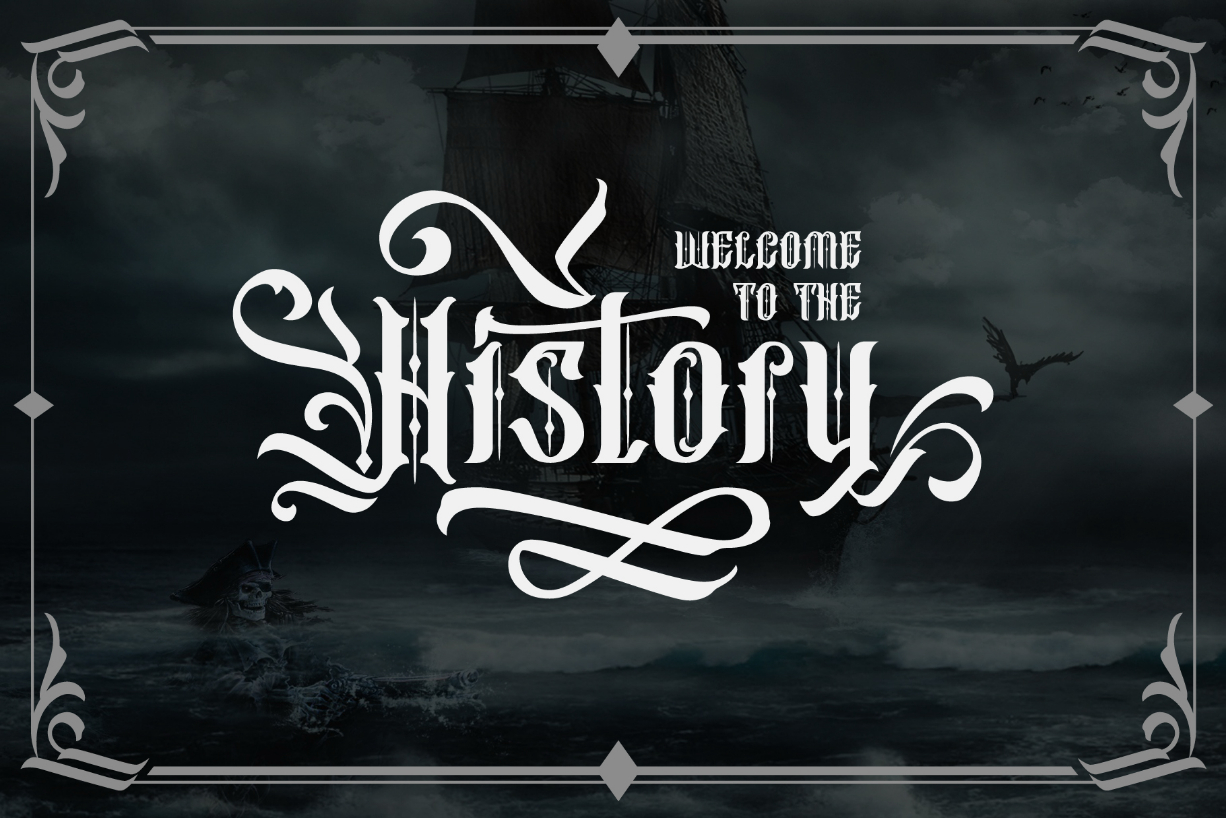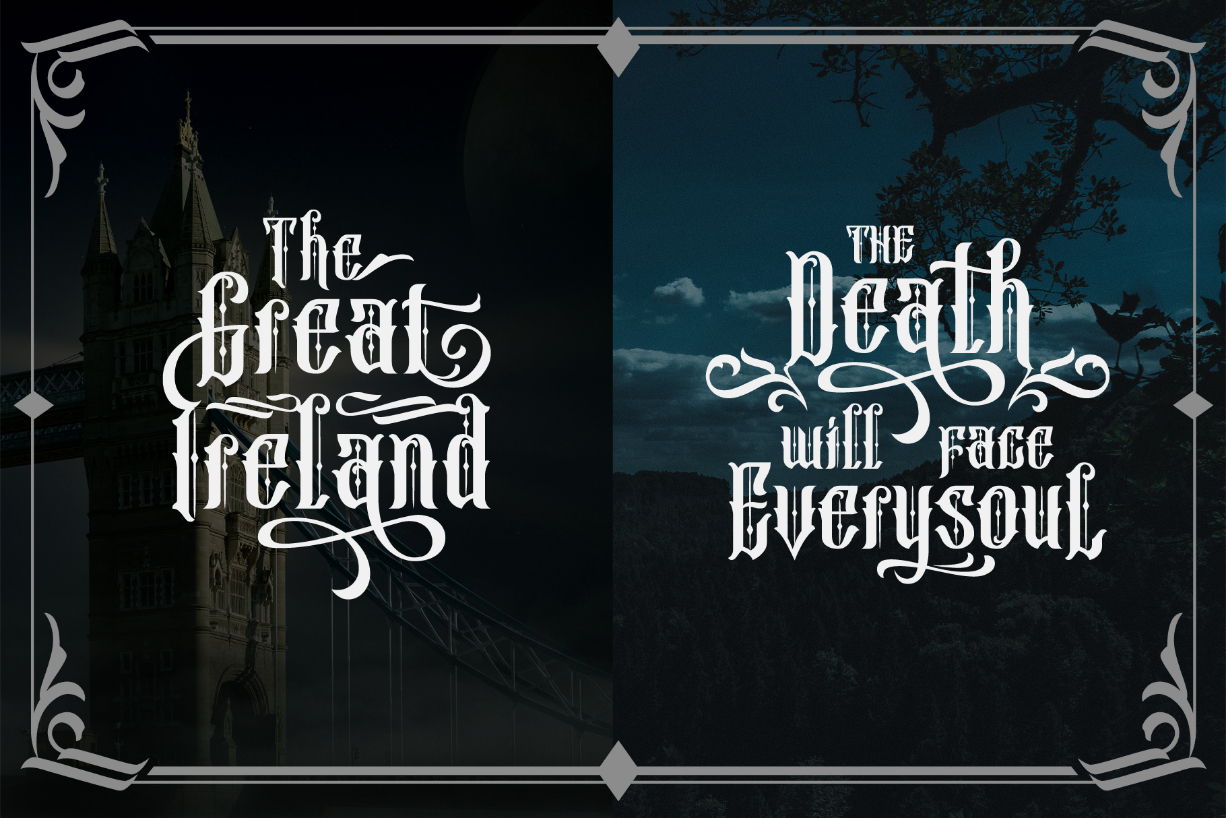
About Katheryna Font
Introducing Katheryna, the new exploration of a blackletter font. Katheryna is carefully crafted with medium details. This ornamental font is inspired from fraktur calligraphy and has a gothic taste. Katheryna is designed for various design projects, especially headlines.